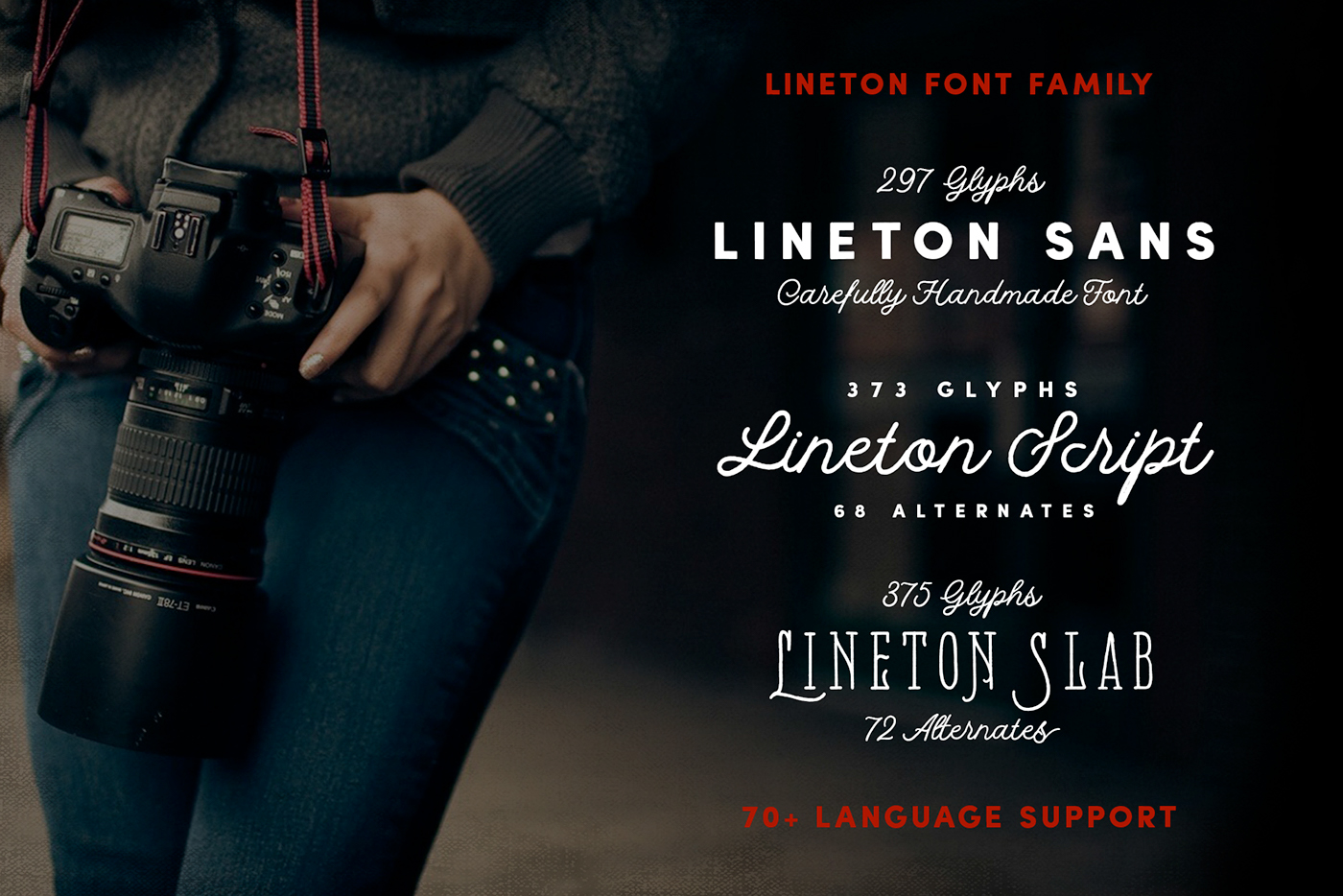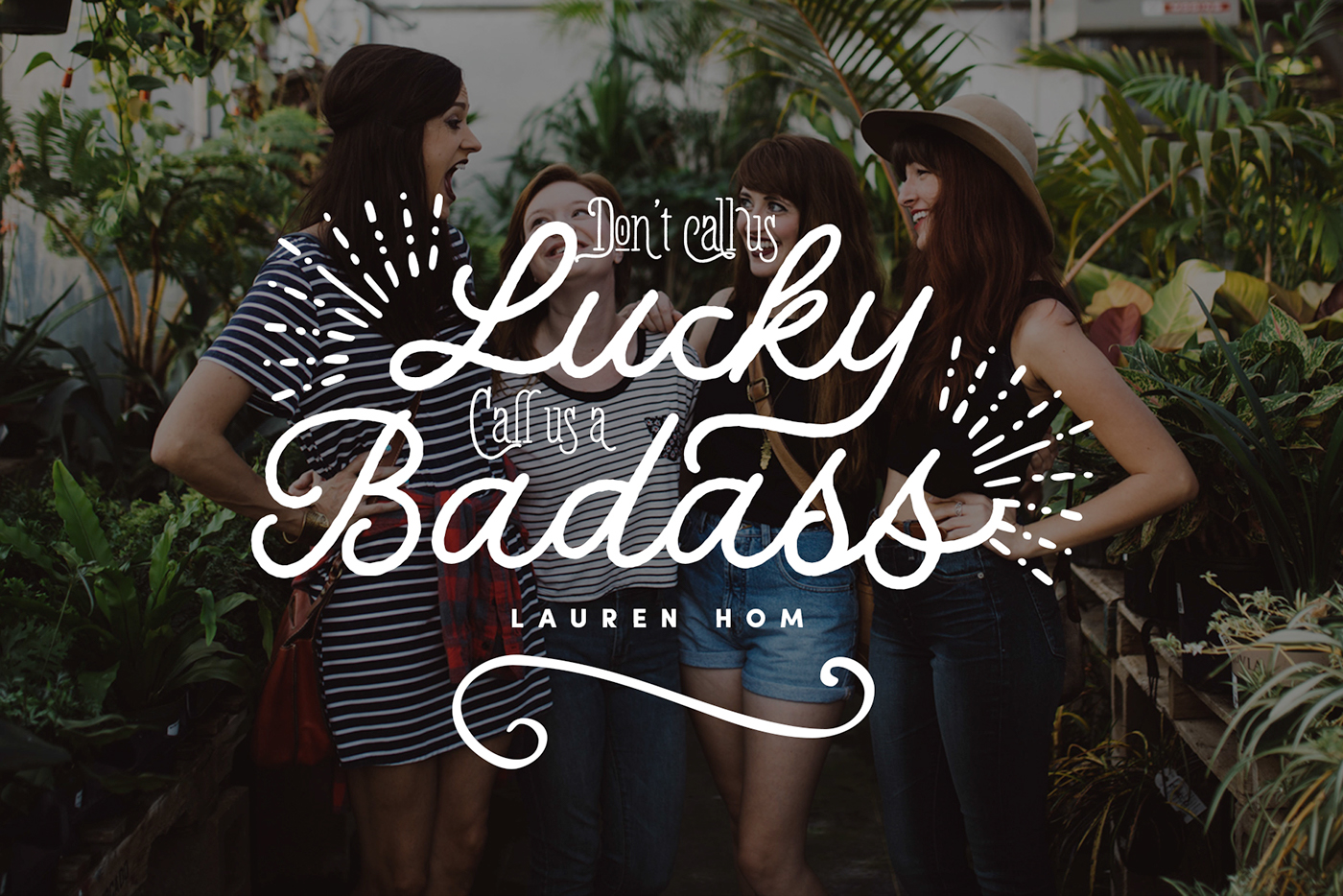
Lineton Handmade Font Family
Let us introduce our brand new font from our typefoundry Lineton Font Family. This font is very chic with ton of alternate and lot of language support just like my other font. Lineton will give you something amazing. The detail will give you handcrafted look, the combination between fonts will give you look as pro handlettering.